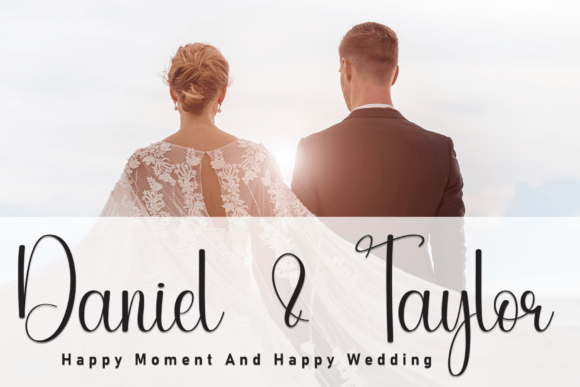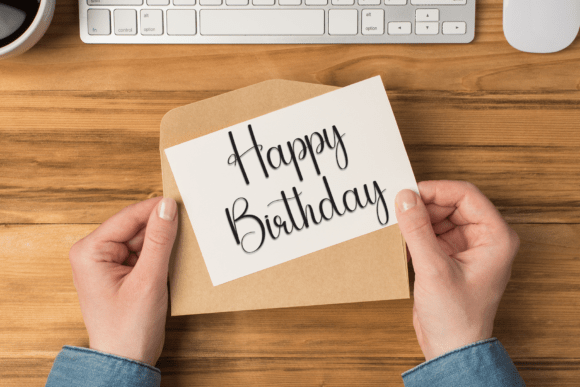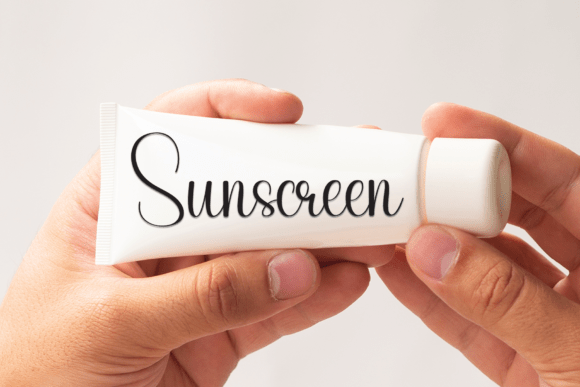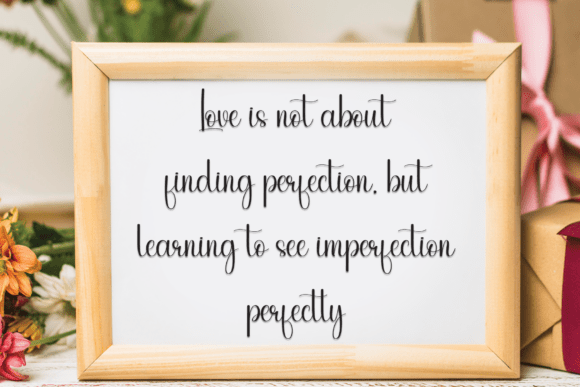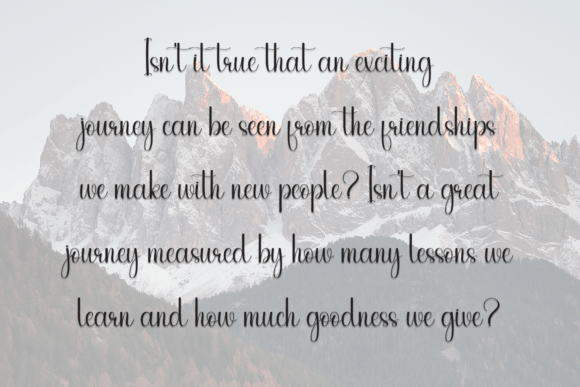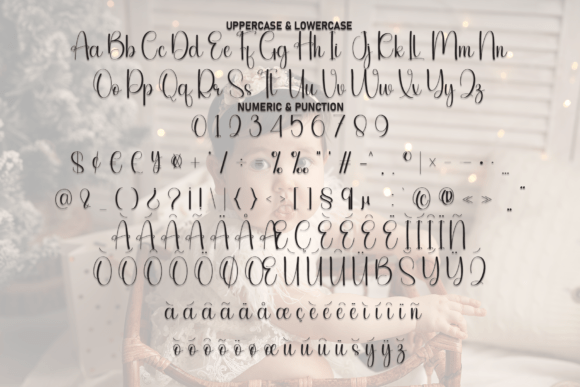
Baby Wedding Font: Adding a Touch of Whimsy to Your Designs
When it comes to designing wedding invitations, cards, and other celebratory materials, the right font can make all the difference. You want something that captures the essence of the occasion, conveying joy, love, and playfulness. That’s where the ‘Sweet and Friendly’ font comes in – a beguiling handwritten display typeface that brings a pocketful of whimsy to your design canvas.
The Charm of ‘Sweet and Friendly’ Font
This enchanting font is designed to enthrall any viewer with its playful charm and carefree allure. Its handwritten style gives it a personal and intimate feel, perfect for transforming ordinary wedding invitations into sparkling pieces of art. Whether you’re a designer or a crafter, ‘Sweet and Friendly’ font is an excellent choice for adding a touch of magic to your creations.
Ideal for Wedding Invitations and Cards
Wedding invitations and cards are a great way to set the tone for the big day. With ‘Sweet and Friendly’ font, you can create beautiful and eye-catching designs that reflect the couple’s personality. This font is ideal for:
- Wedding invitations: Make a lasting impression with beautifully designed invitations that showcase the couple’s style.
- Save-the-date cards: Create playful and fun cards that build excitement for the upcoming wedding.
- Thank-you cards: Express gratitude with heartfelt and personalized cards that feature the ‘Sweet and Friendly’ font.
Adding a Playful Twist to Your Designs
‘Sweet and Friendly’ font is not just limited to wedding invitations and cards. You can use it to add a playful twist to a variety of designs, such as:
- Party decorations: Create custom banners, garlands, and signs that feature the ‘Sweet and Friendly’ font.
- Stationery: Design beautiful notebooks, journals, and planners that showcase this charming font.
- Digital graphics: Use ‘Sweet and Friendly’ font to create engaging social media graphics, blog posts, and website headers.
The Benefits of Using ‘Sweet and Friendly’ Font
So, why choose ‘Sweet and Friendly’ font for your designs? Here are just a few benefits:
- Unique and eye-catching: This font is sure to grab attention and leave a lasting impression.
- Playful and whimsical: ‘Sweet and Friendly’ font adds a touch of playfulness to any design.
- Easy to read: Despite its playful style, this font is easy to read and understand.
- Versatile: Use ‘Sweet and Friendly’ font for a variety of designs, from wedding invitations to digital graphics.
Tips for Using ‘Sweet and Friendly’ Font
To get the most out of ‘Sweet and Friendly’ font, here are a few tips:
- Pair with complementary fonts: Combine ‘Sweet and Friendly’ font with other fonts to create a unique and visually appealing design.
- Experiment with colors: Try out different colors and color combinations to find the perfect match for your design.
- Use it sparingly: Don’t overuse ‘Sweet and Friendly’ font – use it sparingly to create a sense of balance and harmony in your design.
‘Sweet and Friendly’ font is a charming and playful typeface that’s perfect for adding a touch of whimsy to your designs. With its handwritten style and carefree allure, this font is sure to enthrall any viewer. Whether you’re a designer or a crafter, ‘Sweet and Friendly’ font is an excellent choice for creating beautiful and eye-catching wedding invitations, cards, and other celebratory materials. So why not give it a try and see the magic it brings to your design canvas?